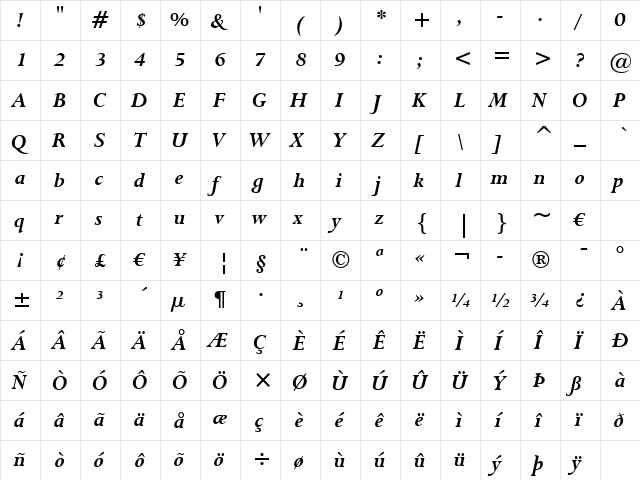
Lapidary333 BT Bold Italic Font Preview
Design Context for Lapidary333 BT Typeface
Lapidary333 BT takes a measured approach to typography — its balanced proportions and neutral character make it a reliable workhorse for both digital and print work. Its italic angle brings a sense of urgency and motion to the letterforms. Its bold stroke weight gives it real presence on the page.
Pro Tip: Try Lapidary333 BT for annotation and caption copy alongside an upright companion — the contrast in angle creates a dynamic but ordered typographic system.